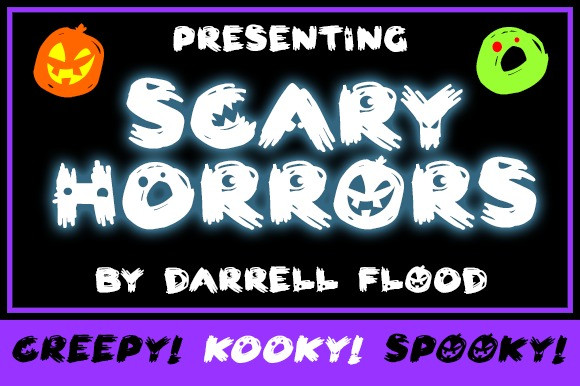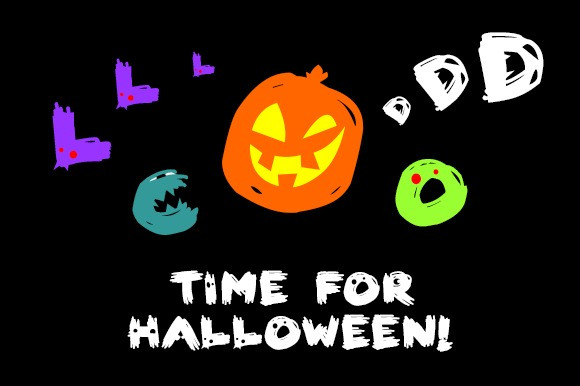
Scary HorrOrs Display Font
Scary Horrors is a spooky, creepy styled decorative font. It features lots of little monster faces hiding in the letters. It is perfect for Halloween themes and horror settings!